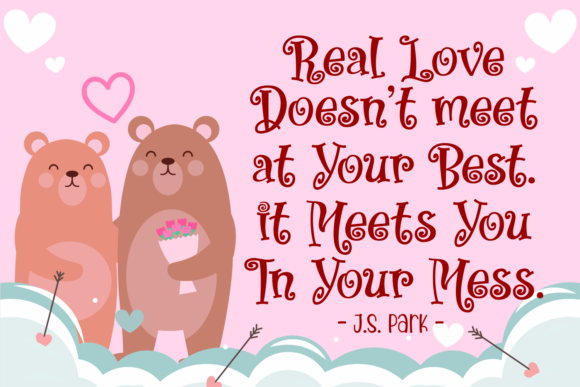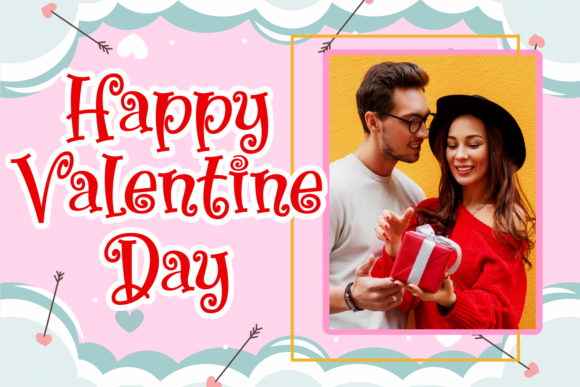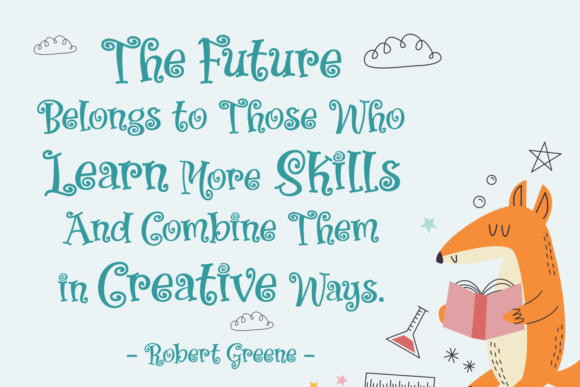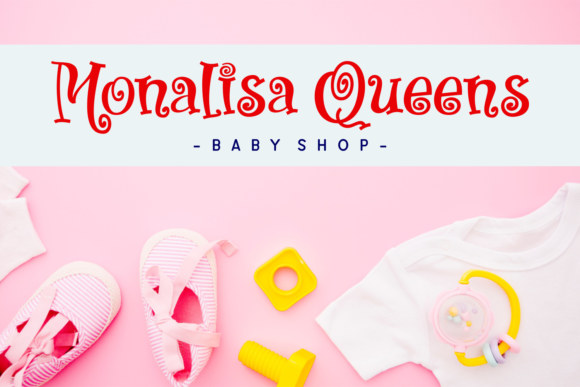
Introduction to Dancing Clarisha Font
Dancing Clarisha is an incredibly cute and whimsical display font.
Joyful and fairytale like, this font will brighten up each of your design ideas .